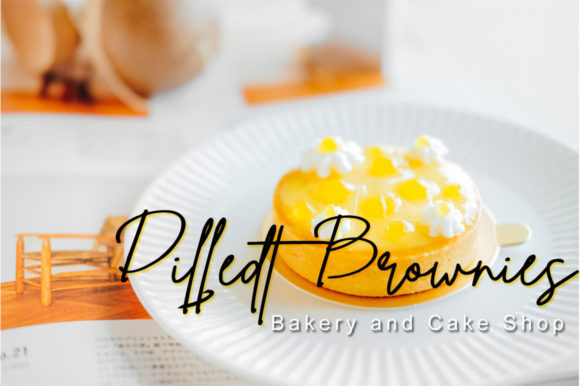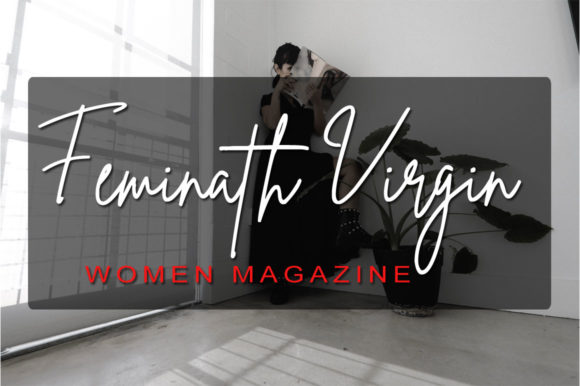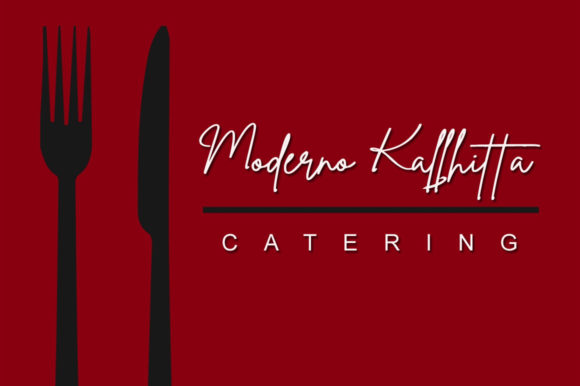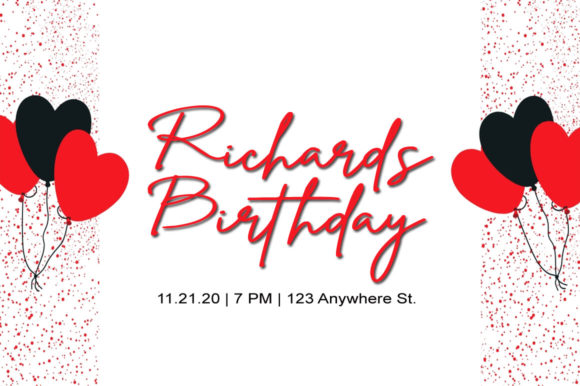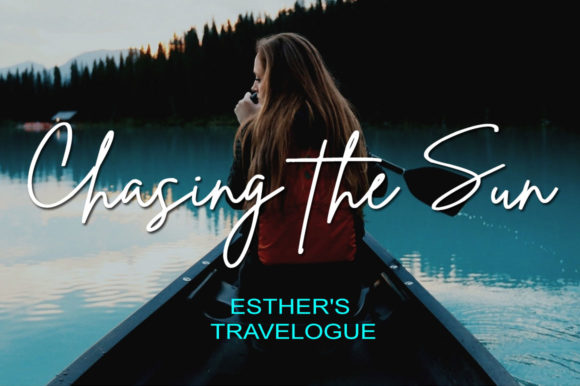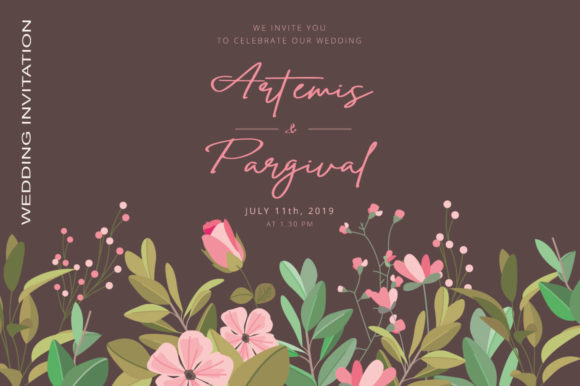
Athena Dilletthrim Font
About Athena Dilletthrim Font
The Athena Dilletthrim is an amazing handwritten signature font. It includes modern letters with an elegant, yet striking style which makes it perfect for a wide range of designs.
It can be used for adding a natural touch to your signatures, quotes, logos, blog headers, posters, branding, letters, and much more!